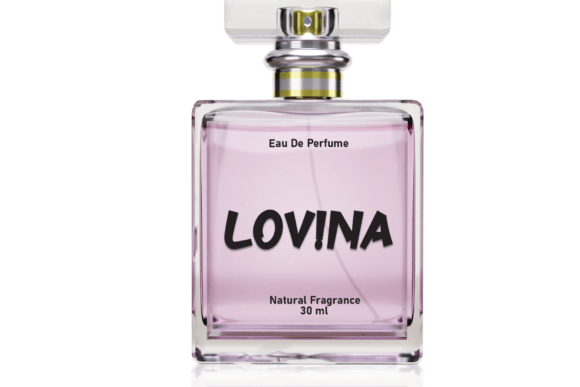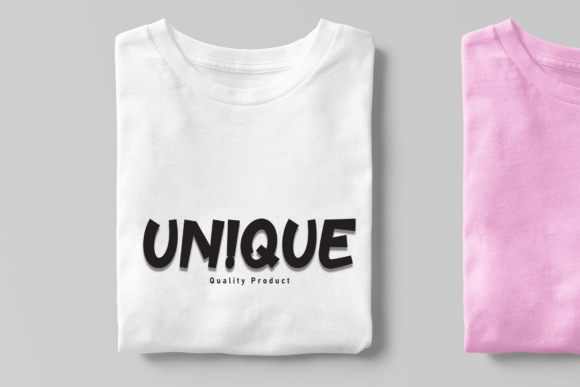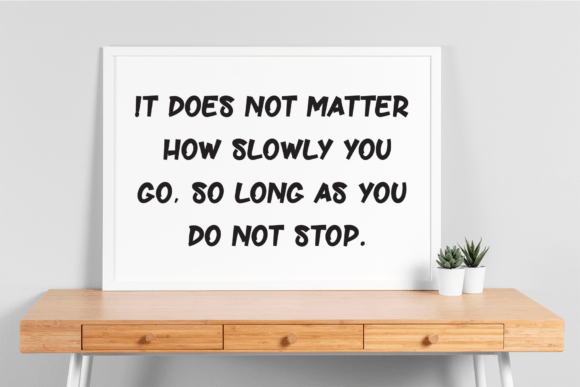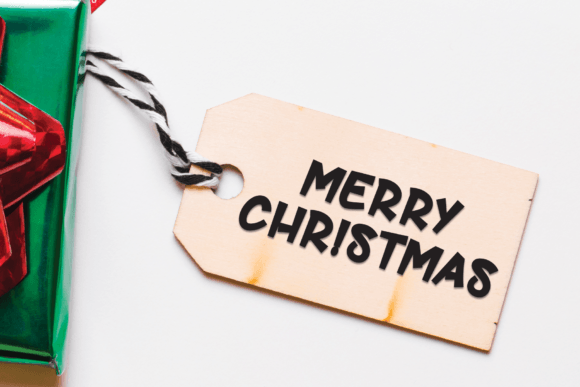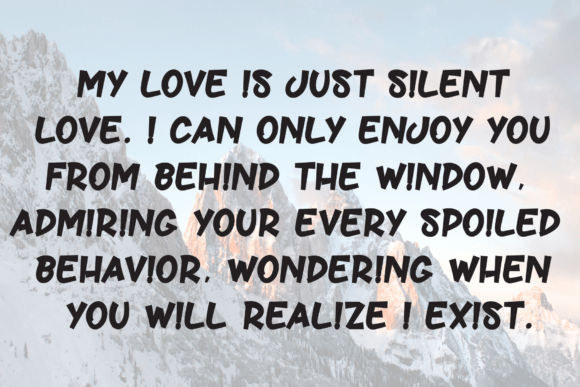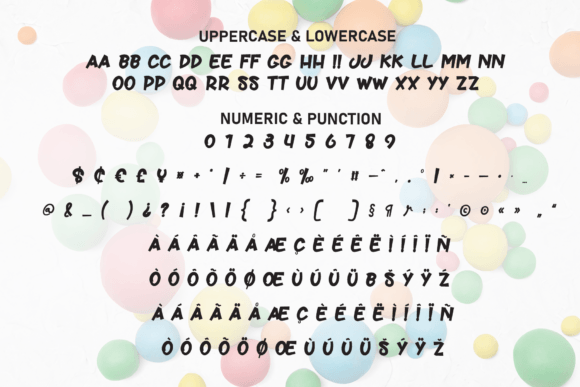
Candy Crunch Font: Add a Sweet Touch to Your Designs
Are you looking for a font that can add a playful and cheerful touch to your designs? Look no further than the Candy Crunch font! This fun and playful display font is perfect for designs that need a lighthearted and whimsical feel. Its rounded letters and bubbly style make it ideal for kids’ projects, party invites, and anything with a playful vibe.
What is Candy Crunch Font?
Candy Crunch is a display font that features rounded letters with a sweet and bubbly style. The font is designed to be fun and playful, making it perfect for designs that need a cheerful touch. The font’s whimsical look is sure to grab attention and add a playful feel to any design.
Key Features of Candy Crunch Font
- Rounded Letters: The font features rounded letters that give it a soft and playful feel.
- Whimsical Look: The font has a whimsical look that is sure to add a playful touch to any design.
- Sweet and Bubbly Style: The font’s sweet and bubbly style makes it perfect for designs that need a cheerful and lighthearted feel.
- Fun and Playful: The font is designed to be fun and playful, making it ideal for kids’ projects and party invites.
Uses of Candy Crunch Font
Candy Crunch font is perfect for a variety of design projects, including:
- Kids’ Projects: The font is ideal for kids’ projects, such as children’s books, educational materials, and kids’ party invites.
- Party Invites: The font’s playful and cheerful style makes it perfect for party invites, such as birthday party invites, baby showers, and graduations.
- Playful Designs: The font is great for designs that need a playful and lighthearted feel, such as logos, branding, and advertising.
- Crafting Projects: The font is also perfect for crafting projects, such as scrapbooking, card making, and DIY projects.
Why Choose Candy Crunch Font?
There are many reasons to choose Candy Crunch font for your design projects. Here are a few:
- Unique and Playful Style: The font has a unique and playful style that is sure to grab attention.
- Easy to Read: The font is easy to read, making it perfect for designs that need to communicate a message.
- Versatile: The font is versatile and can be used for a variety of design projects.
- Fun and Cheerful: The font is fun and cheerful, making it perfect for designs that need a lighthearted touch.
Tips for Using Candy Crunch Font
Here are a few tips for using Candy Crunch font in your design projects:
- Use it for Headings: The font is perfect for headings and titles, as it grabs attention and adds a playful touch.
- Pair it with Other Fonts: The font can be paired with other fonts to create a unique and interesting design.
- Use it in Color: The font looks great in color, so don’t be afraid to experiment with different colors and combinations.
- Experiment with Different Sizes: The font can be used in a variety of sizes, from small to large, to create a unique and interesting design.
Candy Crunch font is a fun and playful display font that is perfect for designs that need a lighthearted and cheerful touch. Its rounded letters and whimsical look make it ideal for kids’ projects, party invites, and anything with a playful vibe. With its unique and playful style, ease of reading, and versatility, Candy Crunch font is a great choice for designers and crafters looking to add a sweet touch to their designs.